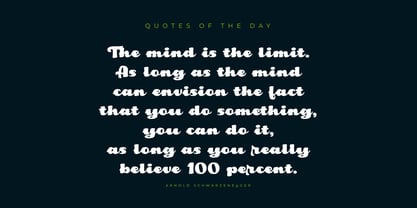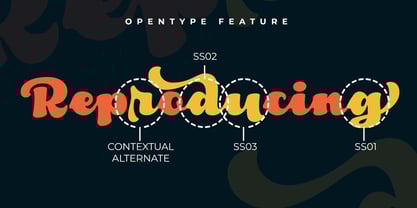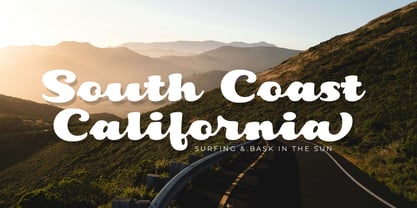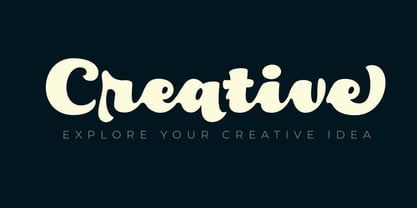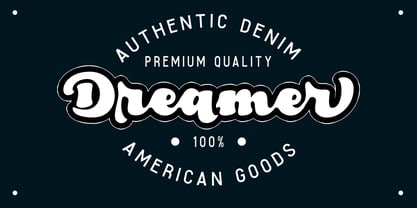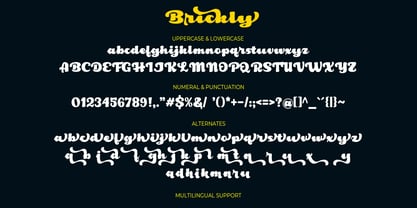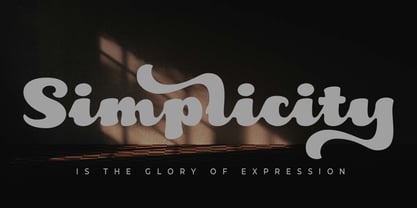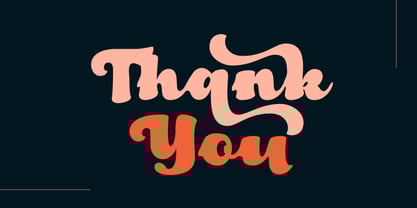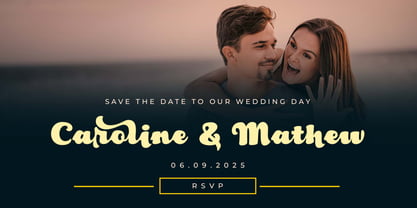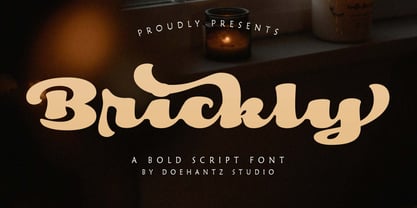
Brickly
by Doehantz Studio
The Brickly Font Family was designed by Abduhan Fikhri and published by Doehantz Studio. Brickly contains 1 styles. More about this family
Brickly is a bold script font. This font was made for any professional project branding, such as logotype, watermarks, poster, branding, promotions, product packaging, signature etc. Every letter has a unique and beautiful touch. This font is PUA encoded which means you can access all of the glyphs and swashes with ease!
Multilingual Support
Alternates Character
Opentype Features